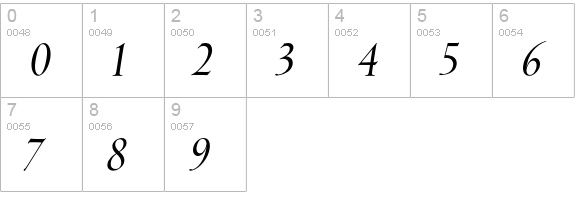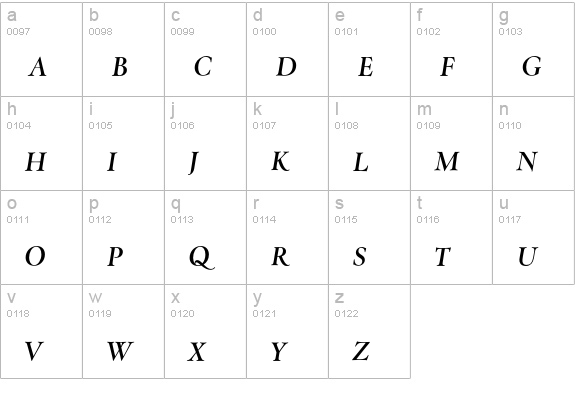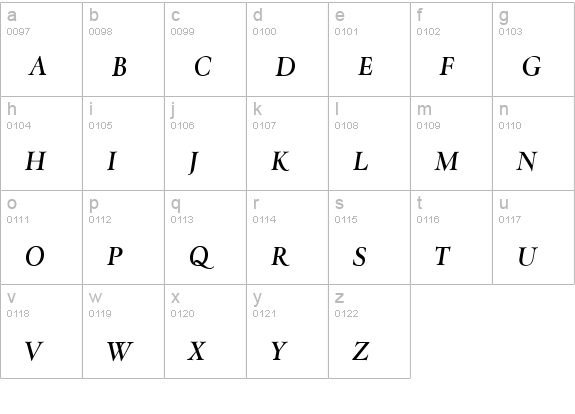
ThrohandInk-ItalicExpert Font Details
Introducing ThrohandInk-ItalicExpert font, a captivating typeface that exudes elegance and sophistication. With its unique blend of handwritten strokes and ink-inspired details, this font effortlessly adds a touch of artistic flair to any design. ThrohandInk-ItalicExpert font is meticulously crafted to capture the essence of fluidity and dynamism, making it an ideal choice for projects that require a sense of movement and creativity. Whether used in branding, advertising, or editorial designs, this font possesses the ability to captivate and engage the audience. What sets ThrohandInk-ItalicExpert font apart is its versatility. It seamlessly transitions from bold headlines to graceful body text, ensuring that every aspect of your design is cohesive and visually striking. The italicized style adds an extra level of elegance and sophistication, making it perfect for projects that demand a touch of refinement. But here's the best part - ThrohandInk-ItalicExpert font is available for free! Yes, you read that right. You can easily download this font from FontsMarket.com and start incorporating its beauty into your designs without any cost. It's a fantastic opportunity to enhance your creative endeavors without breaking the bank. So, if you're looking for a font that effortlessly combines elegance, fluidity, and creativity, ThrohandInk-ItalicExpert font is the answer. Download it today from FontsMarket.com and let your designs come to life with its captivating presence.